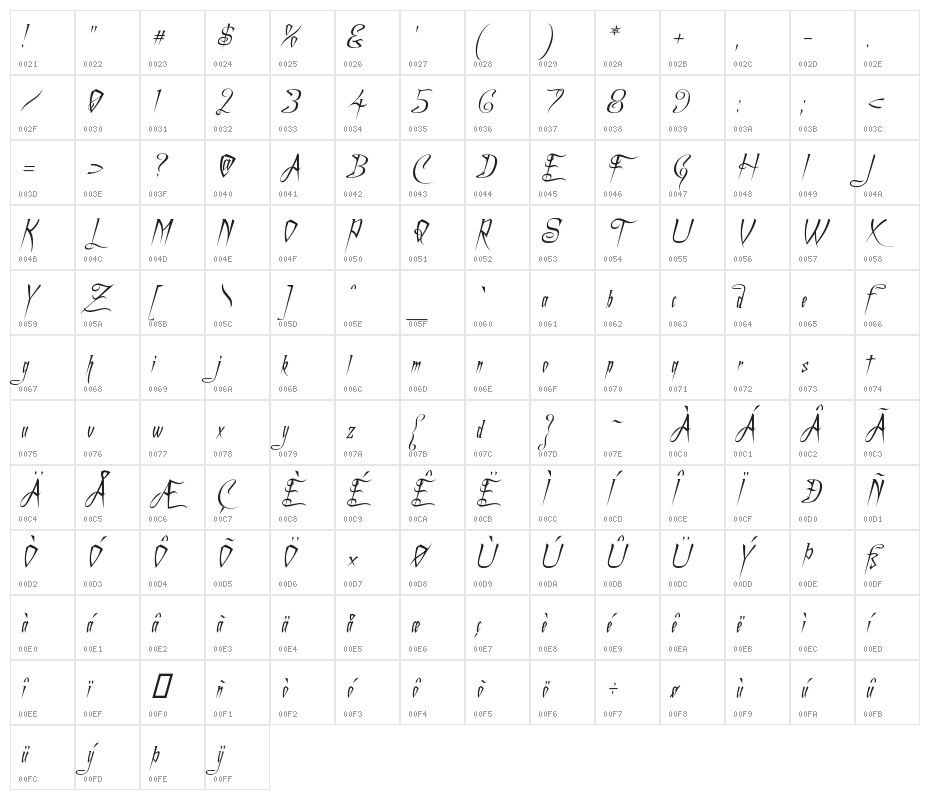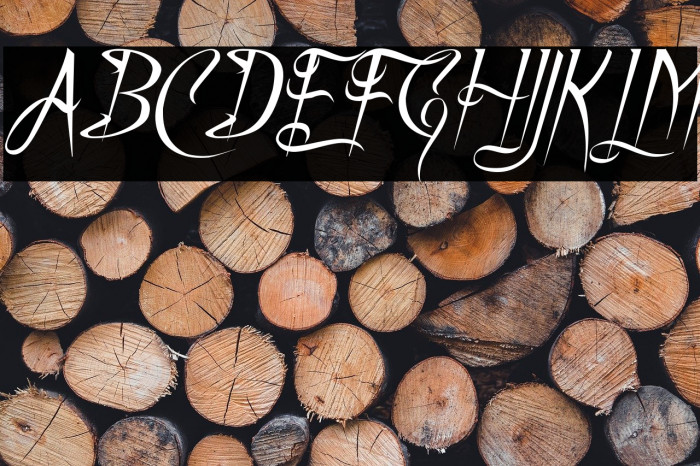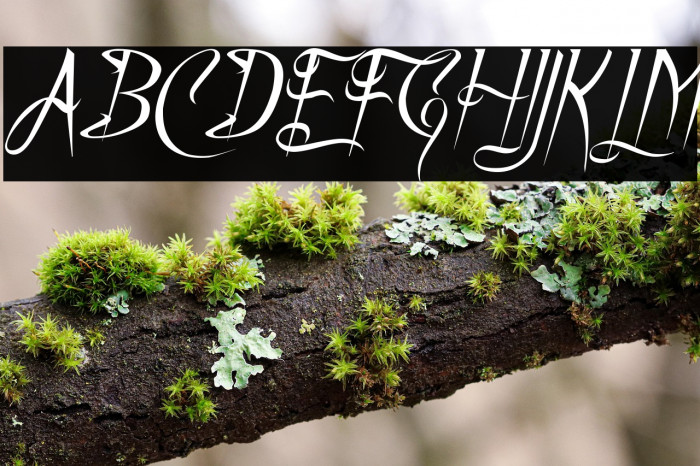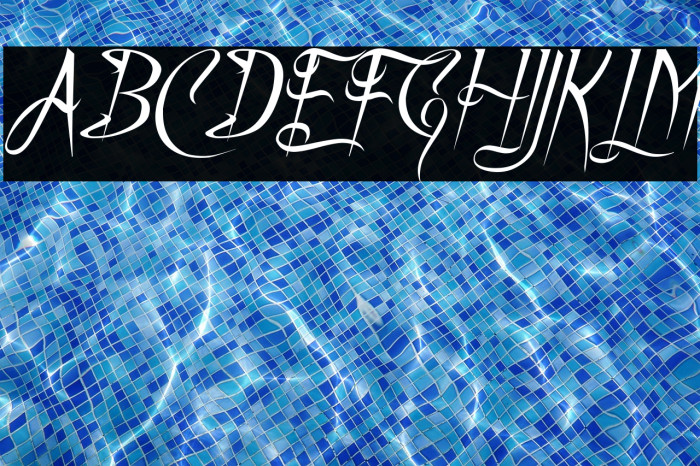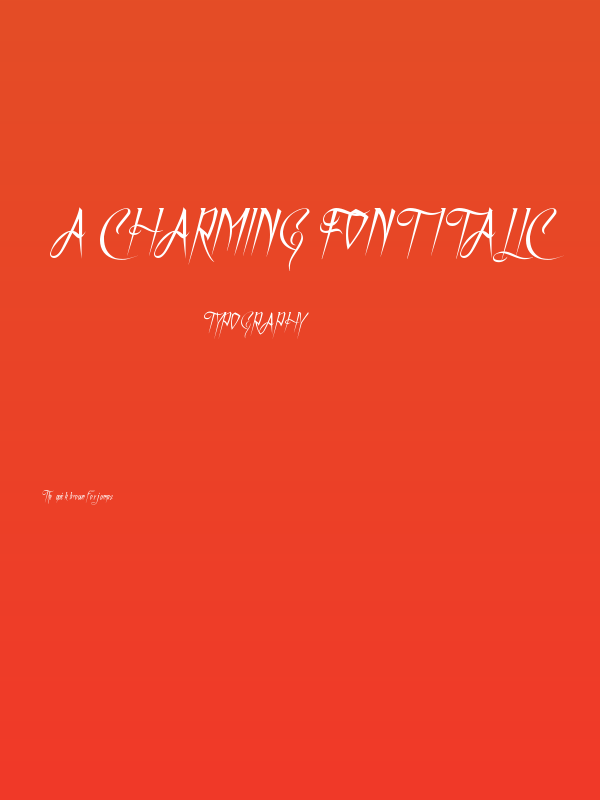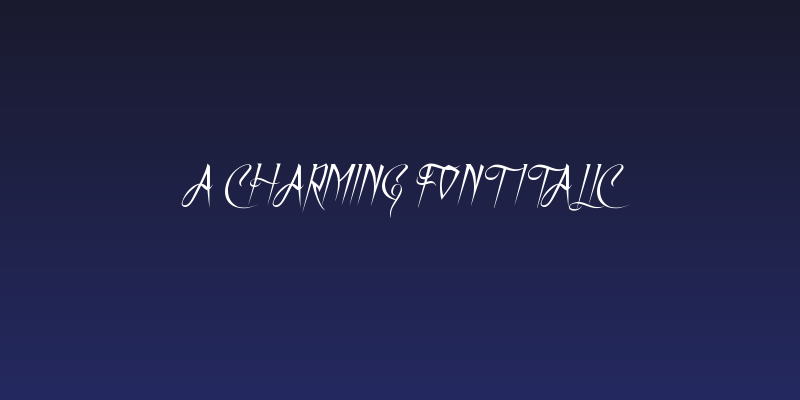
A Charming Font Italic Font
A Charming Font Italic Description
This font features an elegant and flowing script style with a distinct italic slant, giving it a dynamic and sophisticated appearance. The uppercase letters are characterized by their tall, slender forms and intricate flourishes, while the lowercase letters maintain a consistent, graceful flow. The numerals are uniquely styled, with a mix of curves and sharp angles that add to the font's decorative appeal. Special characters are designed with similar flair, enhancing the overall aesthetic. This font is ideal for projects that require a touch of elegance and creativity.
A Charming Font Italic